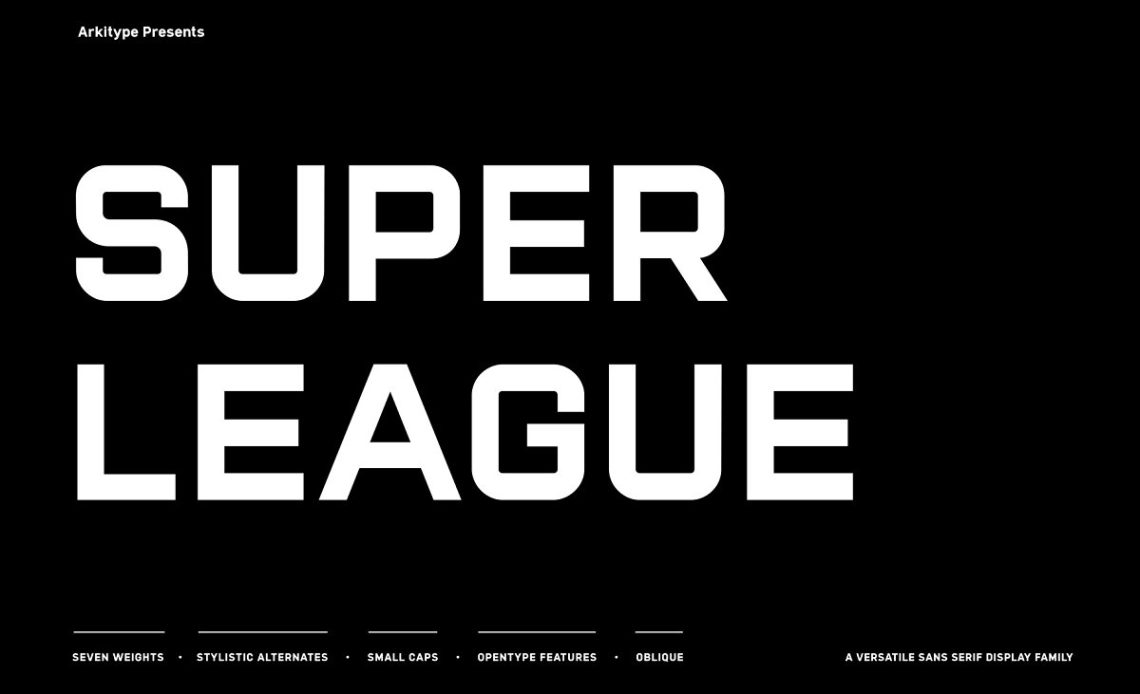
Looking for the best fonts for college papers? Look no further than Super League Typeface, created by Andrew Footit. Designed specifically for the sports industry, Super League is a sans-serif display typeface that is versatile enough to be used across a variety of sporting categories.
One of the standout features of Super League is its numerous options, including small caps, stylistic alternates, and ligatures for vs, st, nd, rd, and th. These features are especially useful when handling typography for sports, allowing for greater creativity and customization.
Whether you're creating printed materials or designing for the screen, Super League is an excellent choice. Its clean and modern design is perfect for creating badges, printing names and numbers on sports kits, and much more.
With Super League, you can create eye-catching designs that capture the spirit of sports while also standing out from the crowd. Don't settle for boring and generic fonts when you can use Super League to elevate your designs and take them to the next level.